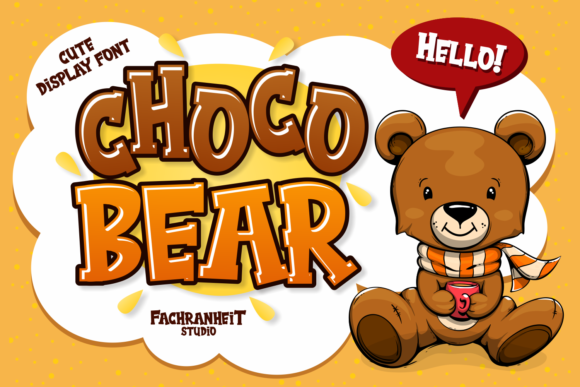
Welcome to the realm of visual enchantment, where letters dance playfully and ideas take flight! Choco Bear Font, the captivating creation of fachranheit, is more than just a font; it's an artistic haven for those craving a touch of whimsy and charm in their designs. A display font brimming with personality, Choco Bear is like a box of delightful chocolates, each letter a sweet morsel of creativity.
Step into a world where imagination flourishes and words transform into magical tales. Whether you're a seasoned designer or just starting your creative journey, Choco Bear will be your trusty companion, guiding you through the labyrinth of visual expression. With its amiable nature, this font will make your messages shine like never before.
Choco Bear is the ultimate font for breathing life into your comic strip dreams. Its playful curves and cheerful strokes will add a touch of levity and charm to your illustrations, making them leap off the page and dance before your eyes. Let your creativity run wild as you craft hilarious punchlines and heartwarming narratives, all brought to life by the magic of Choco Bear.
But Choco Bear's talents don't stop at comics. Oh no, dear friends! This font is a versatile chameleon, adapting effortlessly to a myriad of creative endeavors. Its friendly demeanor makes it perfect for adding a personal touch to your Instagram posts, transforming them into visually captivating masterpieces.
Dive into the world of DIY projects and let Choco Bear guide your artistic hand. Create unique greeting cards that burst with warmth and personality, or design enchanting invitations that transport your guests to a realm of whimsy. With Choco Bear as your creative ally, every project becomes an opportunity to weave magic into the mundane.